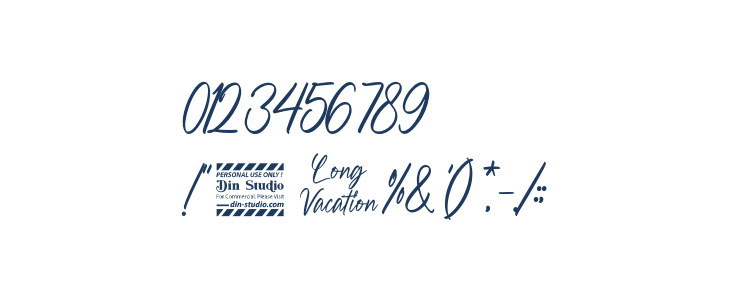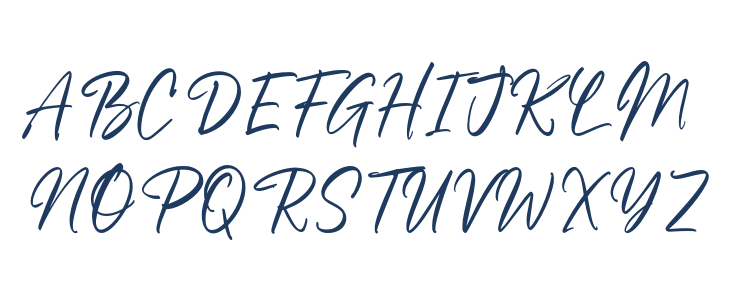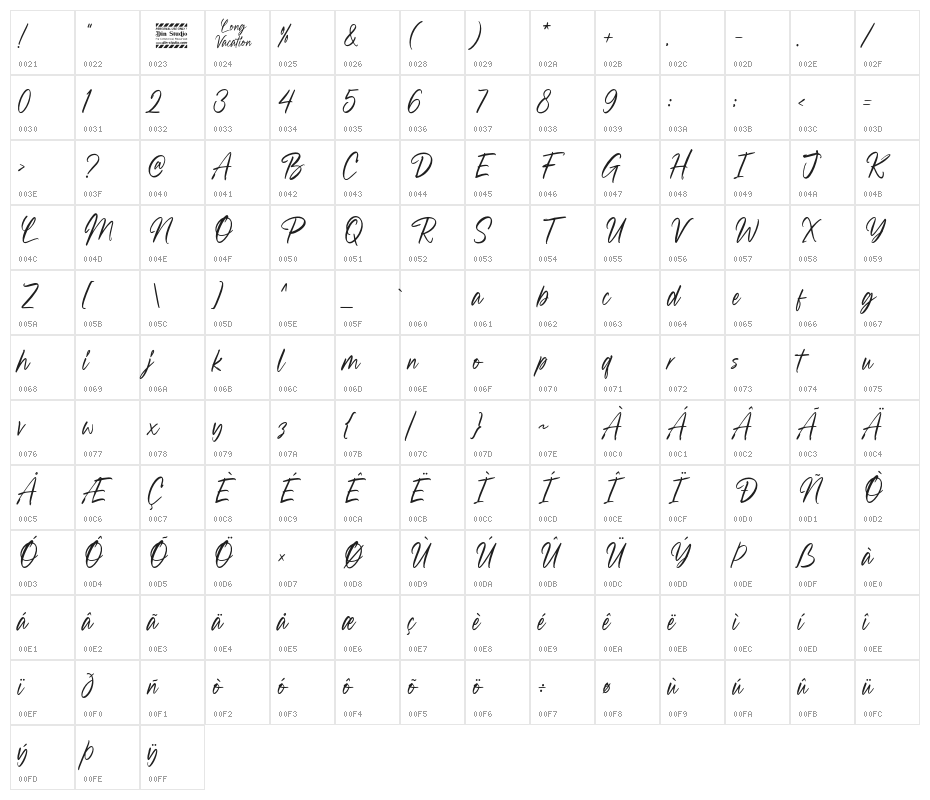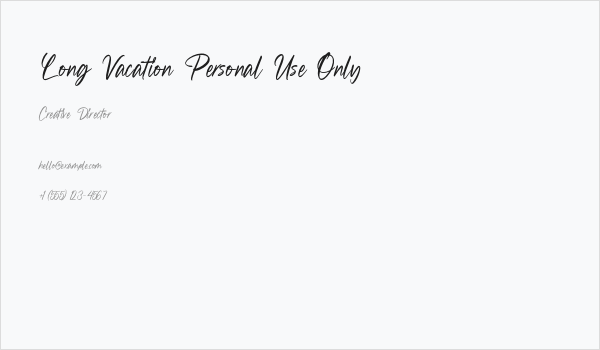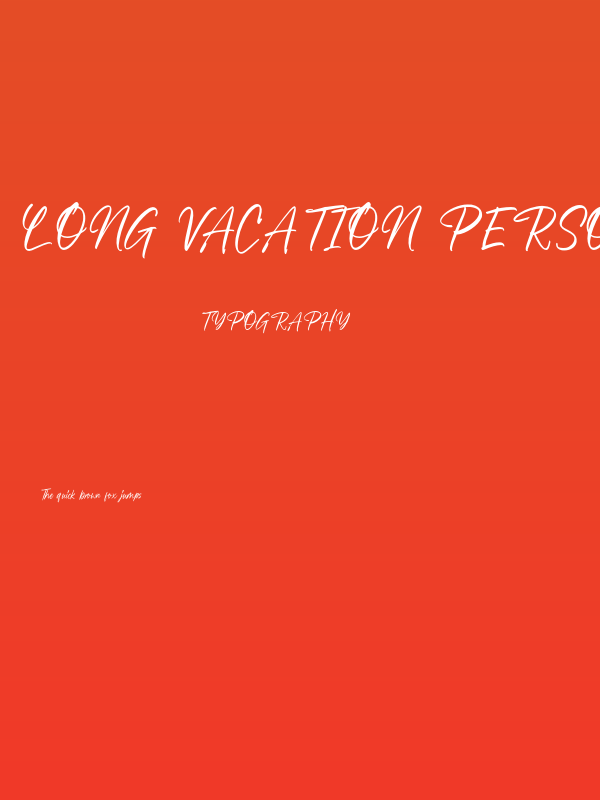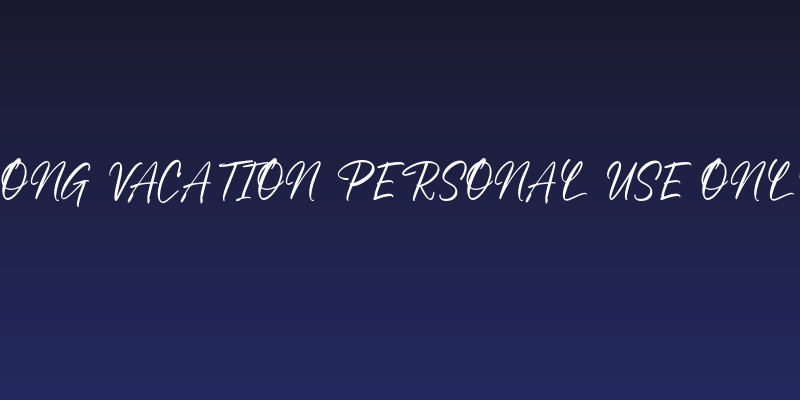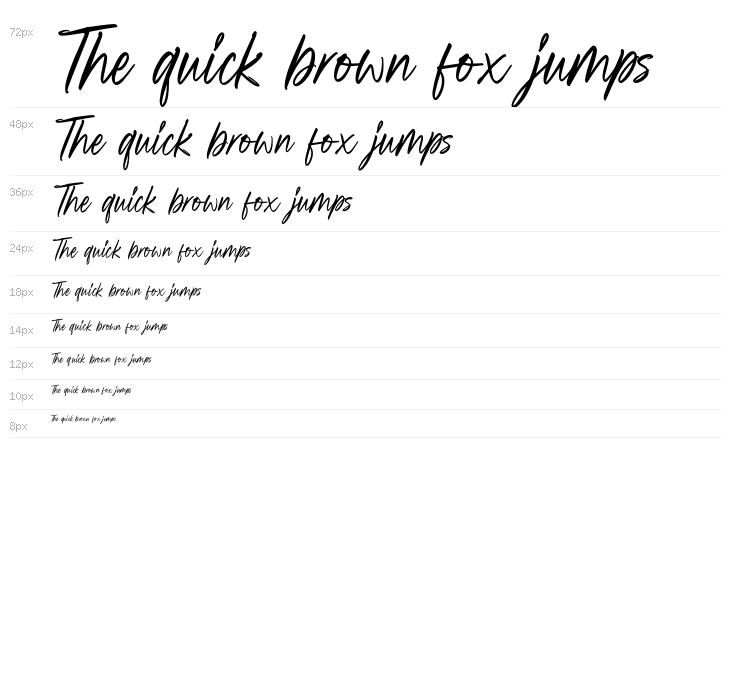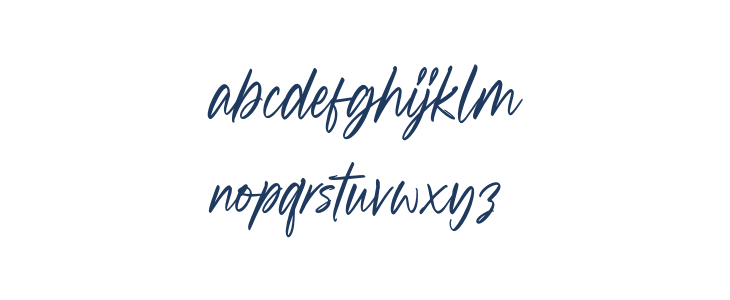
Long Vacation Personal Use Only Font
Long Vacation Personal Use Only Description
A casual, handwritten script font with fluid, connected strokes and a natural, slightly slanted appearance. The characters have a playful, relaxed feel with moderate contrast in stroke thickness and distinctive loops and tails.
| Overall Style | Casual, Decorative, Handwritten |
| Use Case | Logos, Headlines, Invitations, Social media posts |
| Proposed Projects | Greeting cards, invitations, personal branding, social media graphics, quotes, and event posters. |